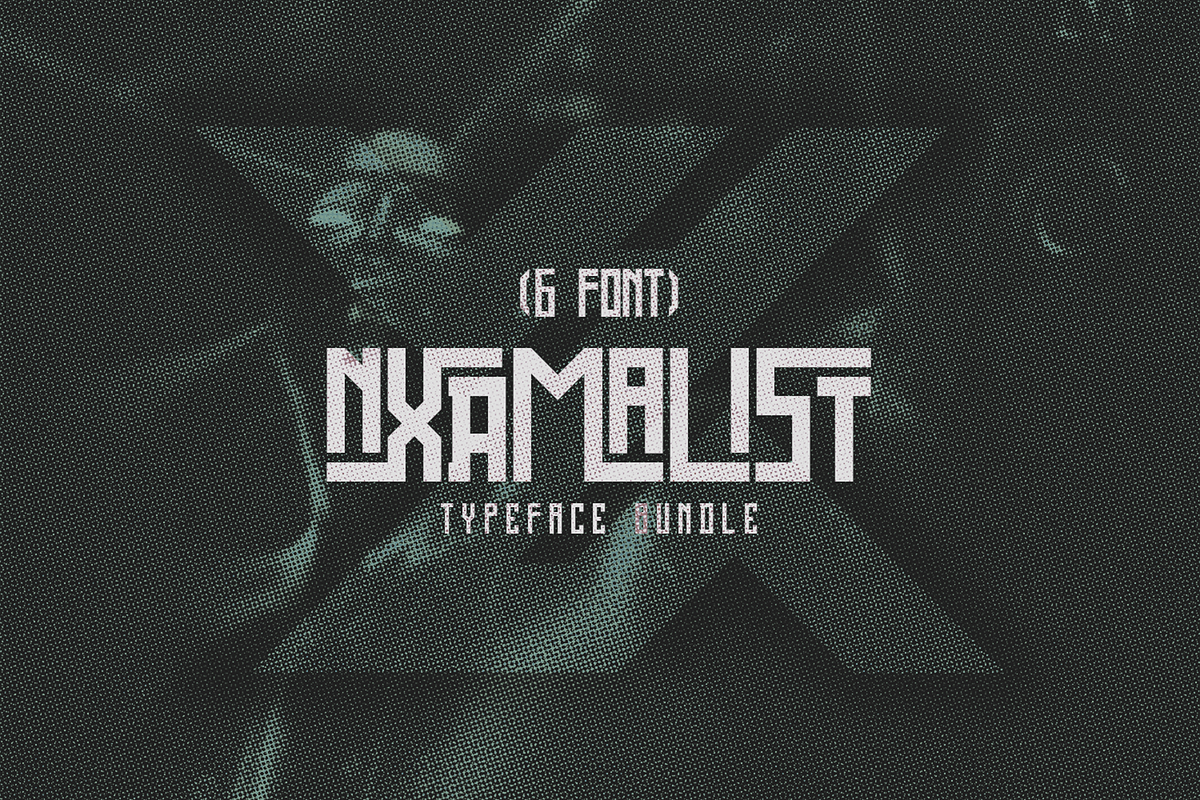
NXRMALIST Typeface Bundle [6 Fonts]
The NXRMALIST Typeface bundle contains all 6 typefaces made by Indonesian designer NXRMALIST. Although most of his inspiration comes from tribes, all fonts are highly futuristic and ideal as display fonts.
UBNXRMA TYPEFACE ( https://nxrmalist.gumroad.com/l/OkrPT )
UNIFIED TYPEFACE ( https://nxrmalist.gumroad.com/l/unified )
ROH-DEMIT TYPEFACE ( https://nxrmalist.gumroad.com/l/ROH-DEMIT )
NXRMA TYPEFACE ( https://nxrmalist.gumroad.com/l/ofHhr )
ZYXROCK TYPEFACE ( https://nxrmalist.gumroad.com/l/lWgHn )
AKSARA TYPEFACE ( https://nxrmalist.gumroad.com/l/aksarav1 )